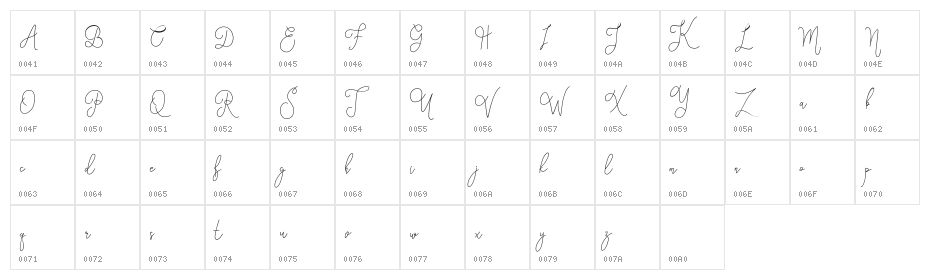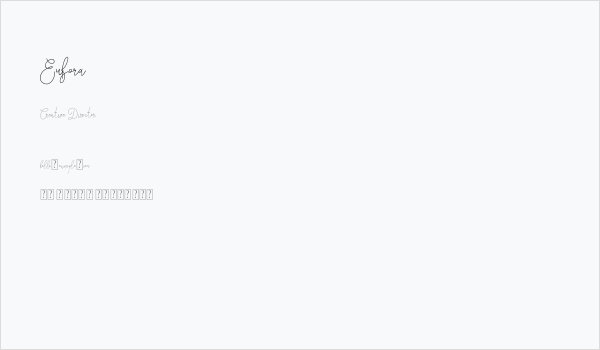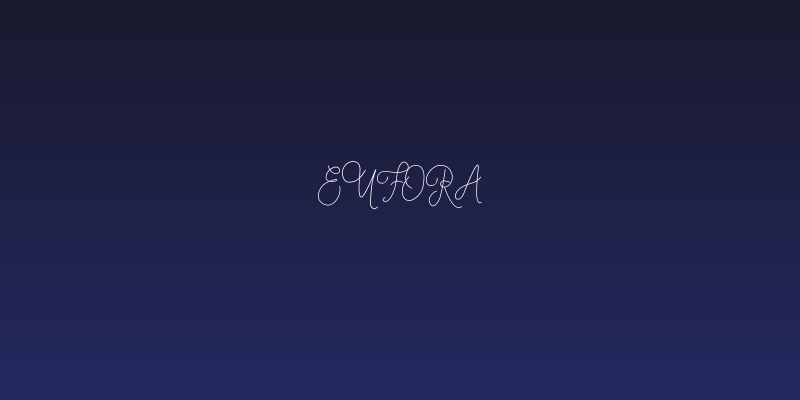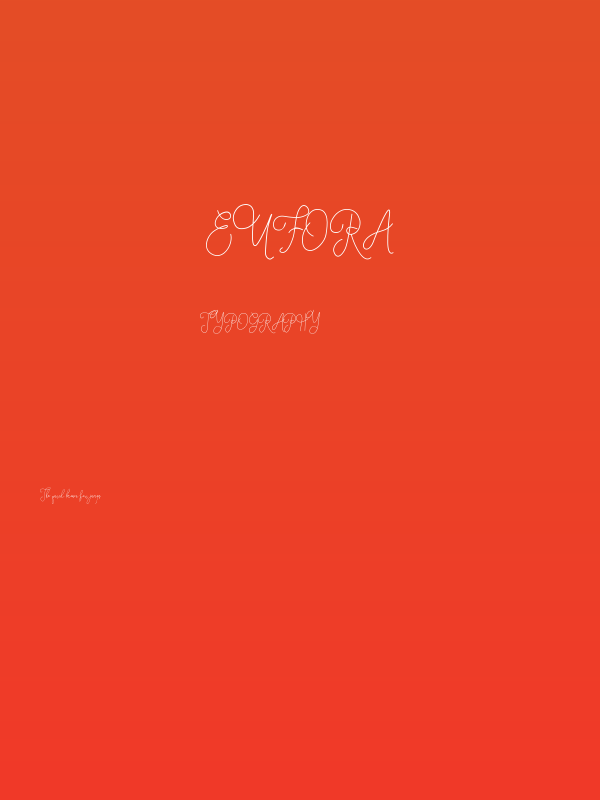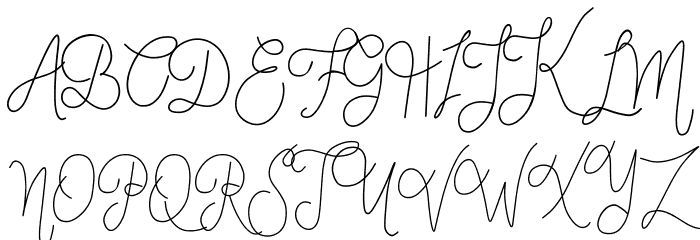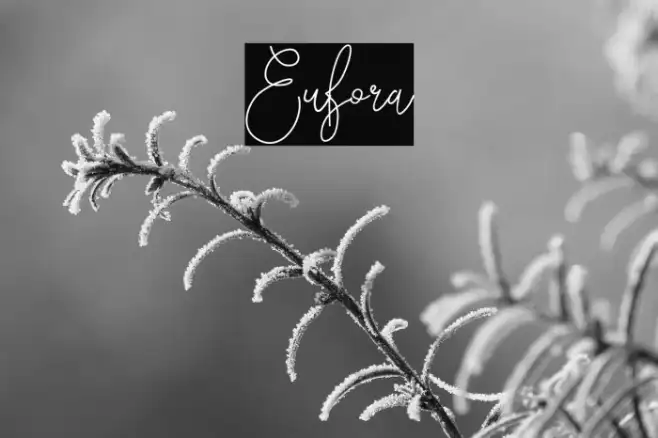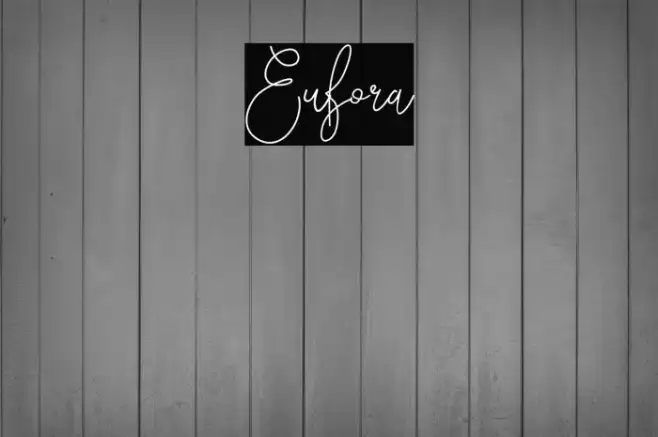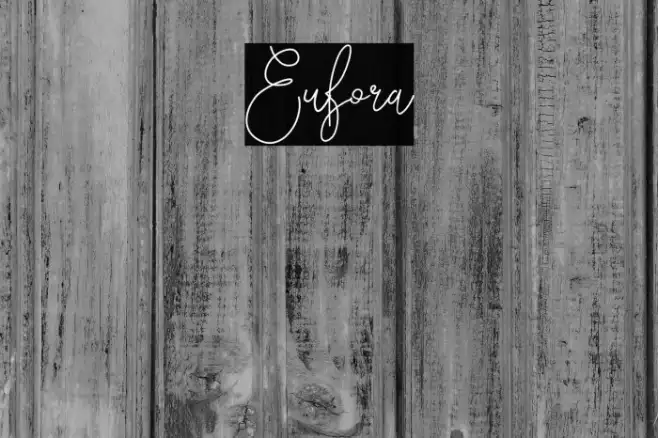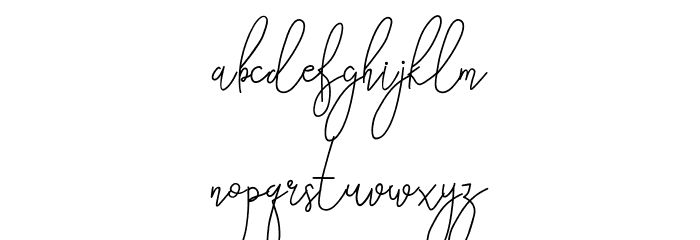
Eufora Font
Eufora Description
This font is a beautifully crafted script with an elegant and flowing style. The characters are interconnected with smooth, looping strokes that give it a sophisticated and graceful appearance. The uppercase letters are particularly ornate, featuring intricate loops and swirls that add a touch of luxury and refinement. The lowercase letters maintain a consistent style, with gentle curves and a slightly narrower form, enhancing readability while preserving the font's decorative nature. The overall design is balanced and harmonious, making it suitable for projects that require a touch of elegance and class. The font's thin lines and delicate curves make it ideal for formal invitations, branding, and other creative projects where a sense of elegance and sophistication is desired.
| Proposed Projects | Ideal for wedding invitations, luxury branding, elegant stationery, and high-end product packaging. |